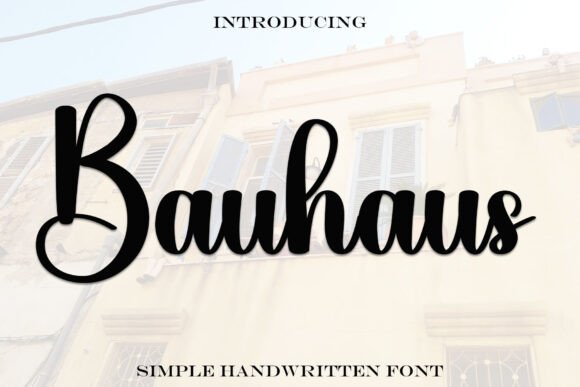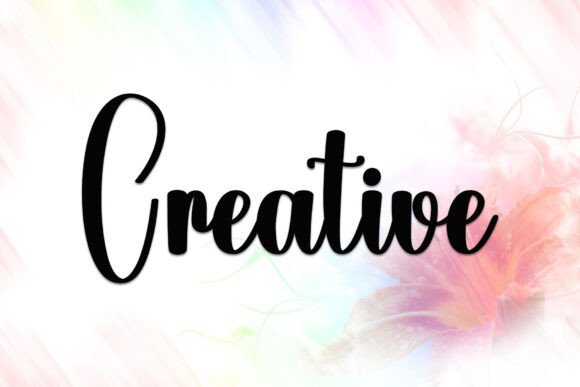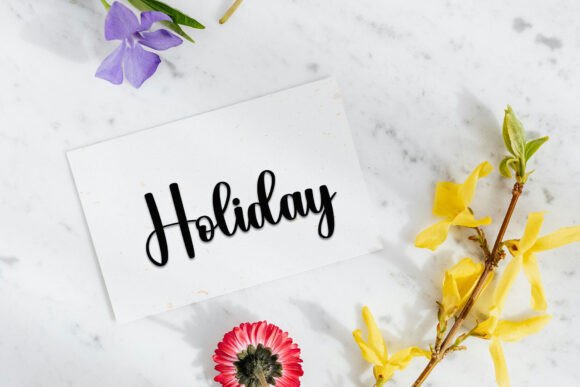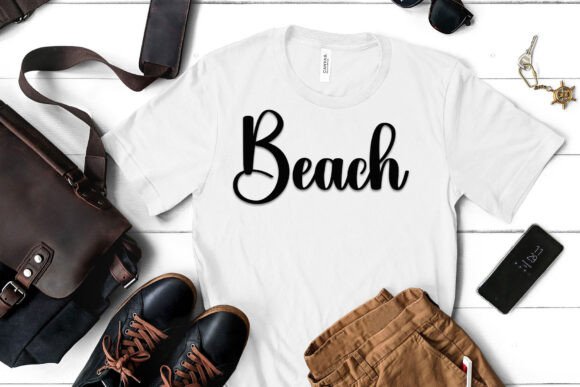
Bauhaus Font: Elegant Cursive Script for Wedding & Branding Designs
About the Bauhaus Font
Step up your design game with Bauhaus Font, a font that exudes confidence and style. Bauhaus is a sweet and cursive handwritten font. This gentle font will look gorgeous on a variety of design ideas. It will add a joyful and romantic touch to each of your projects! Perfectly fit for branding, logo, wedding things, greeting cards, fashion, lookbook, marketing promotion, and any time you want your design to look fancy and elegant but still casual.
Bauhaus Font Usage Examples
Bauhaus Font Example